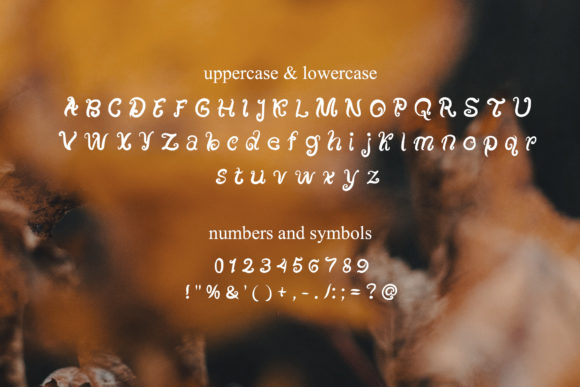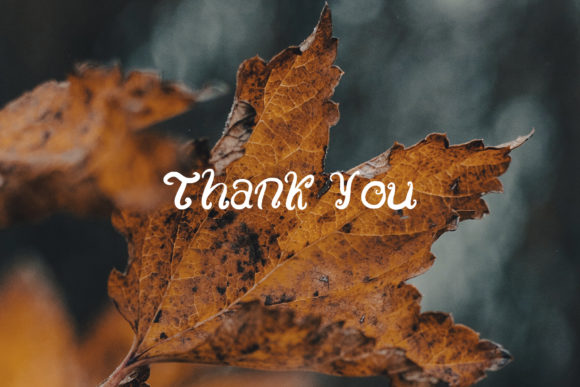
Introduction to Old Work – Handwritten Font
Old Work is an elegant handwritten font.
Fall in love with its completely different and timeless style and use it to create spectacular designs .